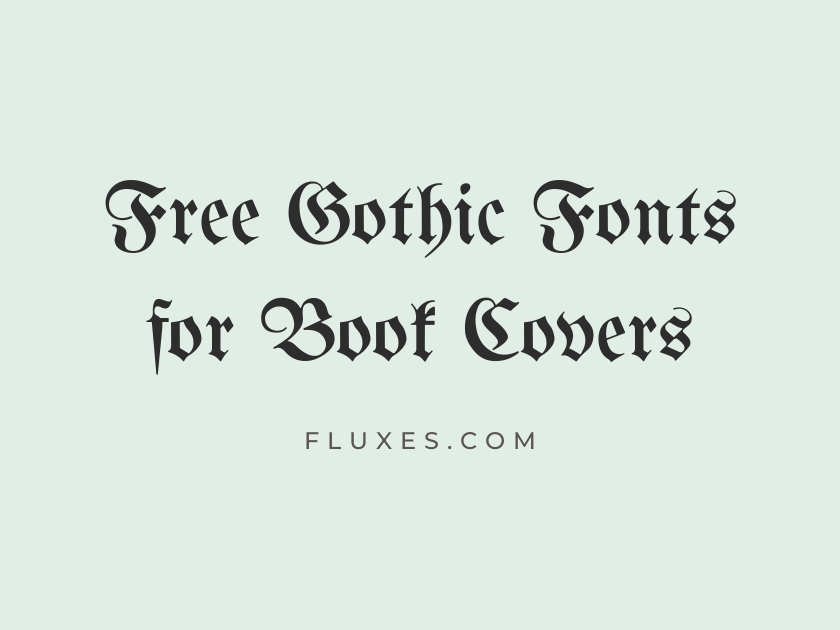
51 Best Free Gothic Fonts for Book Covers
Gothic book cover design lives in the tension between menace and elegance: crumbling manor houses, candlelit manuscripts, blood-red wax seals, and typefaces that look like they were carved into a cathedral door or dripped in ink at midnight. Whether you are designing a Victorian gothic romance, a dark fantasy epic, a horror paperback, or a modern reissue of a classic ghost story, the right typeface does as much storytelling as the cover art itself. Every font recommended here is free on Google Fonts, and the range runs from true blackletter and fraktur revivals to horror display faces, cathedral-inspired capitals, and the elegant old-style serifs that keep a gothic novel’s back cover copy readable.
Choosing free gothic fonts for a book cover usually means balancing drama against legibility; a title can scream in blackletter, but the subtitle, author name, and blurb need a calmer hand. The selections below cover both jobs.
1. UnifrakturMaguntia
This is the font most people picture when they hear the word “gothic”: a genuine fraktur revival with jagged, ink-heavy strokes that look lifted from a medieval German printing press. It is unapologetically loud, so save it for a title of two or three words rather than a full sentence.
Pair it with a plain serif for the byline and it instantly reads as horror, dark fantasy, or occult fiction rather than costume-drama gothic romance.
2. UnifrakturCook
UnifrakturCook
A rounder, slightly friendlier cousin of Maguntia, with bolder terminals that hold up better at small thumbnail sizes on an ebook store page. Good for series branding where you need the blackletter mood to survive a shrink to icon size.
3. Pirata One
Pirata One takes the bones of blackletter and smooths them into something a modern reader can actually parse at a glance, which makes it one of the more practical choices for a full title rather than a single word.
4. Grenze Gotisch
Grenze Gotisch
A variable blackletter face that ranges from a fairly light, almost delicate weight up to something heavy and monastic. That range makes it flexible for series work where you want related but distinct covers across several books.
5. Almendra
Almendra
Almendra has sharp, slightly gnarled serifs that feel hand-carved, giving it a gothic romance sensibility without tipping into full blackletter theatrics. It reads comfortably at body-copy sizes too, so it can carry a back-cover synopsis as well as a title.
6. Almendra Display
Almendra Display
The display cut of the same family, stretched and dramatized for headline use. It is the one to reach for on the front cover while the regular weight handles supporting text.
7. Almendra SC
Almendra SC
Small caps only, and quite handsome for a subtitle line or a genre stamp above the title, lending a formal, engraved quality.
8. Astloch
Astloch
Astloch looks like lettering chiseled into weathered rock, all rough edges and uneven weight. It suits gothic fantasy covers built around ruins, standing stones, or old religious orders far better than anything set in a clean sans serif.
9. Fondamento
Fondamento
An italic calligraphic hand with a monastic, quill-and-parchment feel. It works nicely for a diary-entry epigraph on a cover or an inside-page treatment rather than a bold headline.
10. New Rocker
New Rocker
Spiky and theatrical, New Rocker leans toward gothic subculture and heavy metal aesthetics as much as literary gothic. It suits YA dark fantasy, witch fiction, and anything with a rebellious, occult-adjacent edge.
11. Nosifer
Nosifer
Nosifer drips like it was written in blood, which makes it perfect for straightforward horror and slasher-adjacent fiction and completely wrong for anything subtle. Use it sparingly, on a single word, and let negative space do the rest of the work.
12. Eater
Eater
Rough, chewed-up edges give Eater a haunted-house, found-footage kind of dread. It reads best large and grungy, layered over a textured or distressed background image.
13. Butcherman
Butcherman leans into dripping horror lettering without going full comic-book, which gives it a bit more range for adult horror fiction rather than strictly YA scares.
14. Creepster
Creepster is instantly recognizable, the default drippy horror font of the internet, and that familiarity is both its strength and its weakness. It signals horror or Halloween anthology fiction immediately, but an editor who has seen a thousand book covers will also recognize it immediately.
It is best used for genre fiction that wants to be fun and campy rather than genuinely unsettling; think haunted-house comedy over literary horror.
Test any font at thumbnail size before finalizing a cover. Many gothic and horror display fonts look striking at full size but turn to mush when shrunk down for an online store listing.
Between true blackletter revivals, dripping horror display faces, cathedral-inspired capitals, and the elegant old-style serifs that keep a synopsis readable, there is enough here to typeset an entire gothic imprint without spending a cent. Download a few, set them against your cover art at actual size, and let the mood of your story pick the winner.